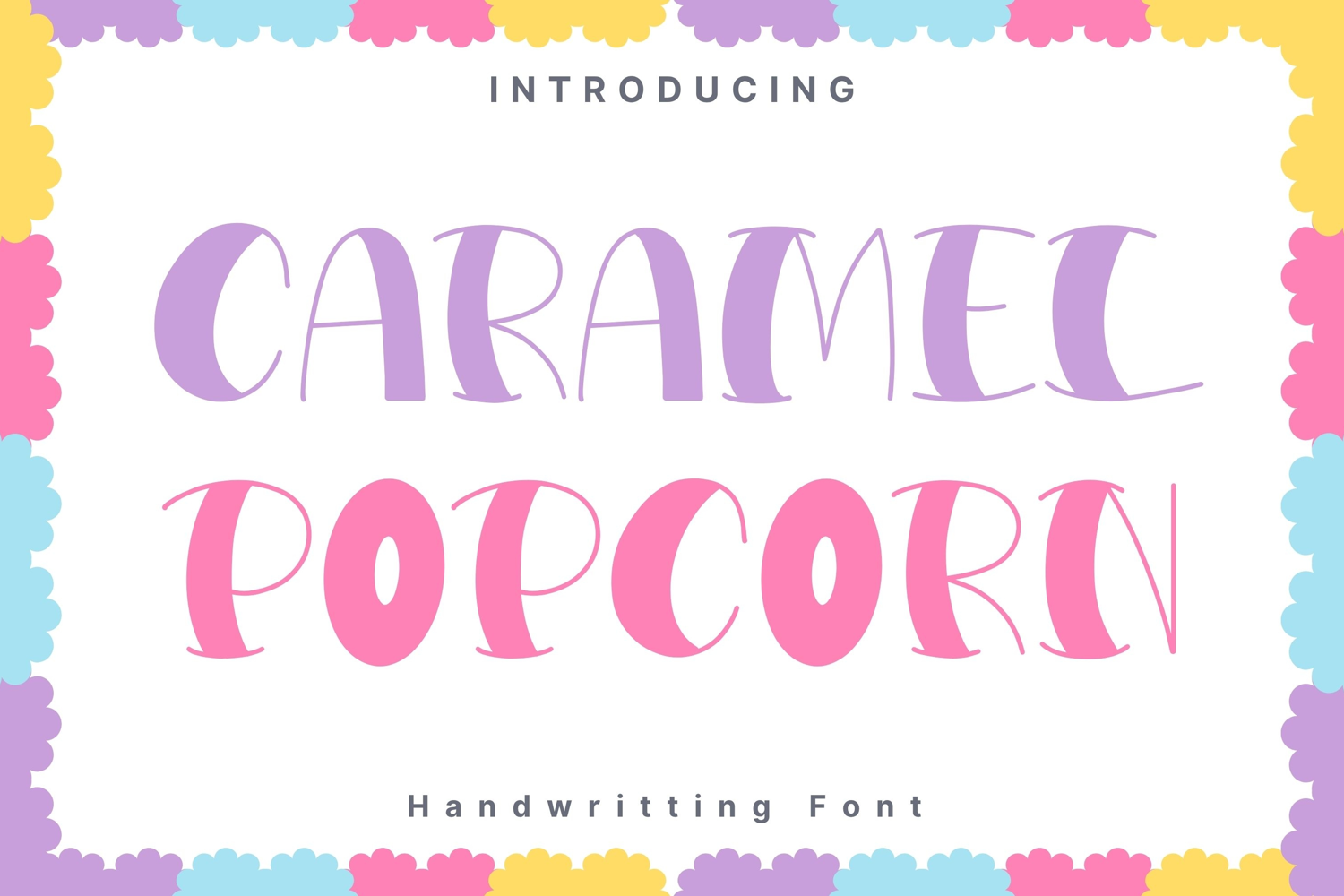
Caramel Popcorn Style
Caramel Popcorn is a fun and flavorful handwritten font with a soft, playful twist. Featuring rounded strokes and charming curves, it radiates sweetness and joy — just like its name suggests. The alternating thick and thin lines create a whimsical rhythm that’s perfect for candy shops, birthday invites, kids’ apparel, pastel packaging, kawaii designs, and cheerful branding. The font’s pastel color palette and bouncy style make it ideal for lighthearted, colorful projects that aim to feel happy and delicious.